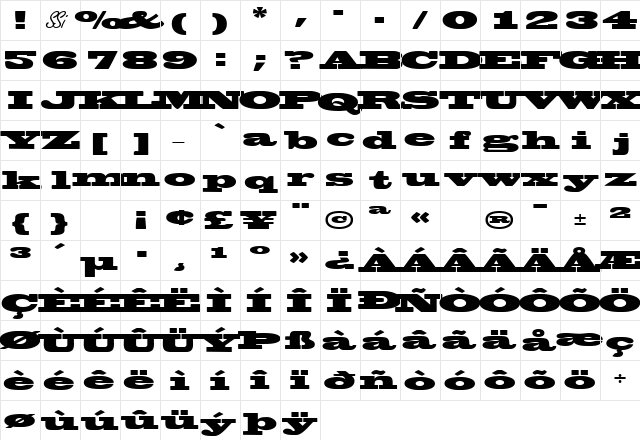
WantedPosterSSK Regular Font Preview
WantedPosterSSK Regular
Design Context for WantedPosterSSK Typeface
WantedPosterSSK offers clean, dependable letterforms without strong stylistic allegiance, making it a practical choice for designers who need flexibility.